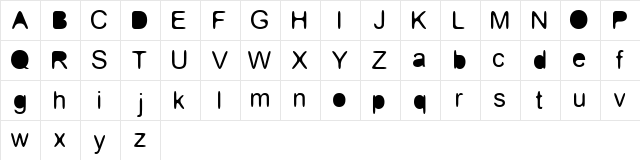
Bleach Stains Regular Font Preview
Bleach Stains Regular
Design Context for Bleach Stains Typeface
Bleach Stains is a composed and adaptable typeface that performs quietly and consistently across a wide range of design contexts.